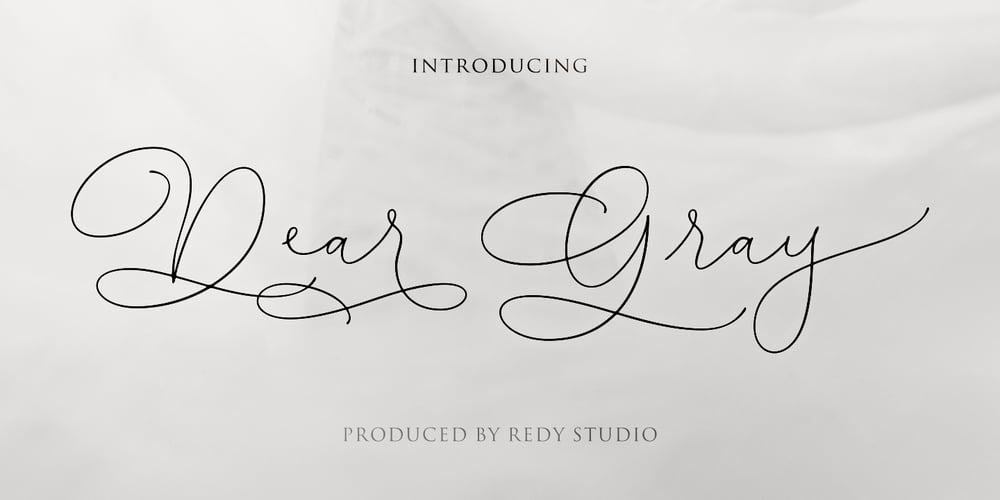
Dear Gray Font Family was designed by Nurul Fajri Redy and published by Redy Studio. Dear Gray contains 1 styles and family package options. Dear Gray – Modern Wedding FontsDear Gray is a beautiful, feminine, and modern calligraphy script for your wedding designs. Dear Gray includes a full set of uppercase and lowercase letters, numerals, punctuation, and common ligatures for a more harmonious look. With Opentype features and stylistic alternatives, Dear Gray gives you a lot of possibilities to make your design even more special. Following the trend of modern hand-drawn typography, Dear Gray is a friendly choice to convey your loving words.Dear Gray features: A full set of upper & lowercase characters Numbers & punctuation Ligatures Lowercase beginning swashes Lowercase ending swashes A ton of stylistic alternatives PUA Encoded Characters – Fully accessible without additional design software. Feel free to give me a message if you have a problem or question. Thank you so much for taking the time to look at one of our products.